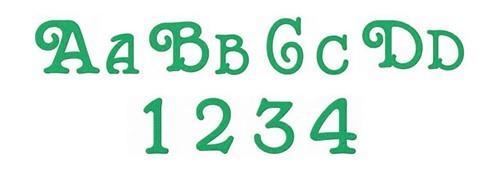
Easy Embroidery is happy to present Popular Font Embrilliance Embroidery Font - Playful Decorative Letters - BX font machine embroidery font which has Playful decorative machine embroidery font ideal for creating vibrant projects on fabric like tote bags. Stylish letters in pink and green bring charm to designs. Available in BX font and other Embrilliance formats. included. If you would like to view more embroidery fonts and alphabets please search our embroidery fonts page.